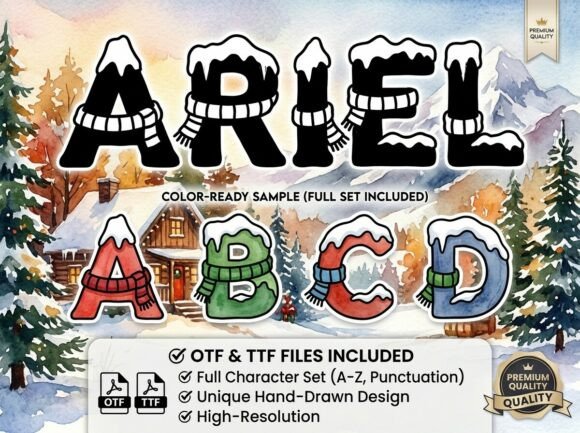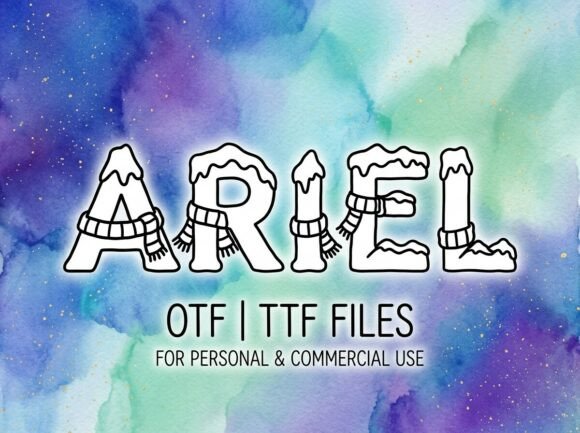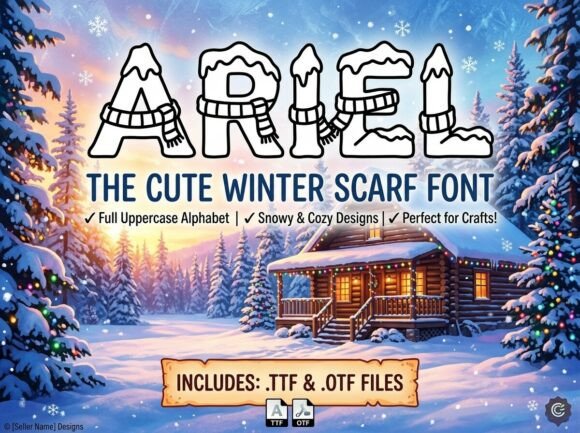
Warm Up Your Winter Designs with Ariel Font: The Ultimate Holiday Typeface
As the winter season approaches, designers and crafters are on the lookout for the perfect typography to add a touch of magic to their holiday projects. Look no further than Ariel Font, a charming display typeface that embodies the “snug-and-seasonal” spirit of the winter season. With its bold, rounded letterforms, rhythmic hand-drawn “snow caps,” and cozy striped scarves, Ariel is the perfect choice for bringing warmth and personality to your winter designs.
Ariel Font: A Whimsical Holiday Typeface
Ariel Font is a unique and captivating typeface that bridges the gap between whimsical holiday illustrations and modern playful branding. Its heavy structural weight and heart-warming personality make it an ideal choice for a variety of winter-themed projects, from independent hot cocoa cafe identities to boutique winter festival promotions, personalized holiday greeting cards, and high-impact social media headers.
Key Features of Ariel Font
- Bold, Rounded Letterforms: Ariel’s letterforms are designed to be bold and rounded, giving them a friendly and approachable feel that’s perfect for winter designs.
- Rhythmic Hand-Drawn “Snow Caps”: Each character features unique, hand-drawn “snow caps” that add a touch of whimsy and playfulness to your designs.
- Cozy Striped Scarves: Ariel’s characters are wrapped in cozy striped scarves, adding an extra layer of warmth and personality to your designs.
- Heavy Structural Weight: Ariel’s bold design ensures that your winter projects will stand out, even at a distance.
Perfect for Winter Projects
Ariel Font is the perfect choice for a variety of winter-themed projects, including:
- Independent Hot Cocoa Cafe Identities: Add a touch of warmth and personality to your hot cocoa cafe’s branding with Ariel Font.
- Boutique Winter Festival Promotions: Create eye-catching promotions for your winter festival with Ariel’s bold and playful design.
- Personalized Holiday Greeting Cards: Make your holiday greeting cards truly special with Ariel’s unique and charming design.
- High-Impact Social Media Headers: Add a touch of winter magic to your social media headers with Ariel’s bold and eye-catching design.
Why Choose Ariel Font?
With so many typefaces to choose from, why choose Ariel Font for your winter designs? Here are just a few reasons:
- Unique and Charming Design: Ariel’s design is truly one-of-a-kind, making it the perfect choice for designers and crafters looking to add a touch of personality to their winter projects.
- Versatile: Ariel Font can be used for a wide range of winter-themed projects, from branding and advertising to greeting cards and social media headers.
- Easy to Read: Despite its bold and playful design, Ariel Font is easy to read, making it perfect for use in a variety of contexts.
Get Ready to Warm Up Your Winter Designs with Ariel Font
If you’re looking for a typeface that will add a touch of warmth and personality to your winter designs, look no further than Ariel Font. With its unique and charming design, bold and rounded letterforms, and cozy striped scarves, Ariel is the perfect choice for designers and crafters looking to create eye-catching and engaging winter projects. So why wait? Download Ariel Font today and get ready to warm up your winter designs!
Whether you’re a designer, crafter, or simply someone who loves the winter season, Ariel Font is sure to become a favorite in your collection. So go ahead, get creative, and show the world what you can do with Ariel Font!